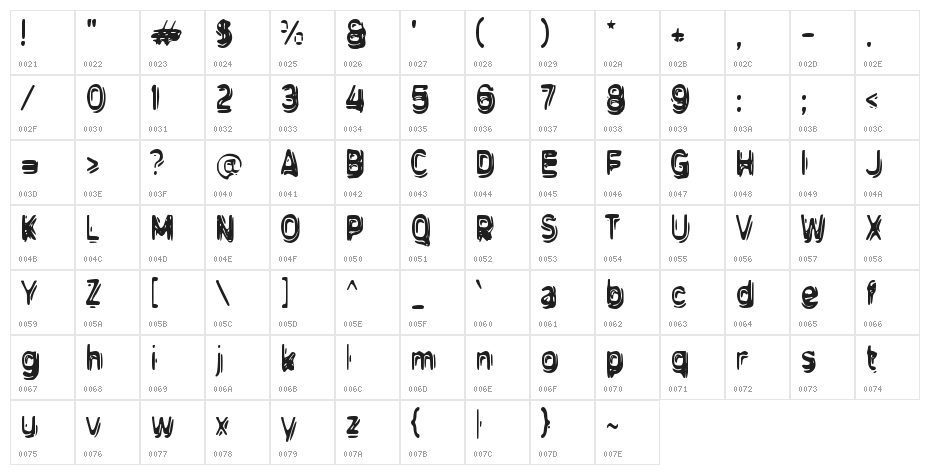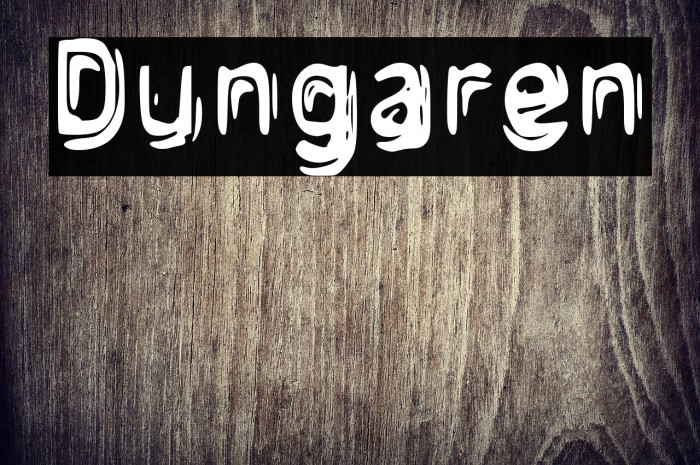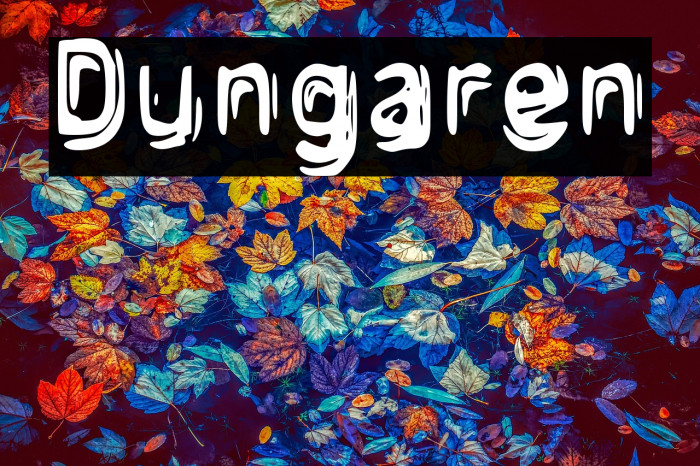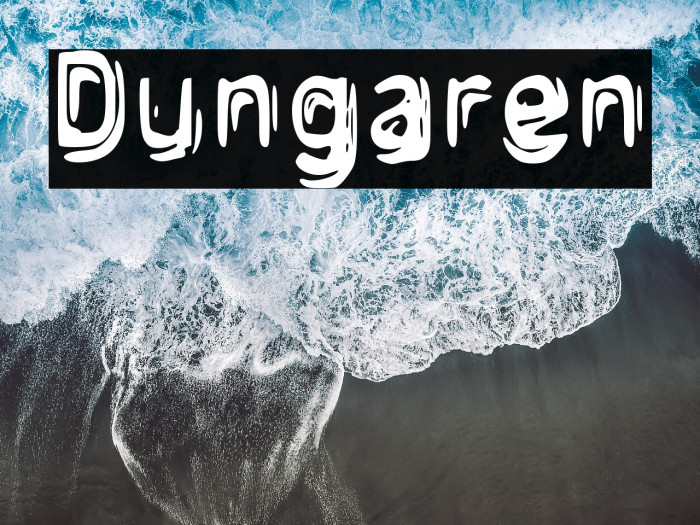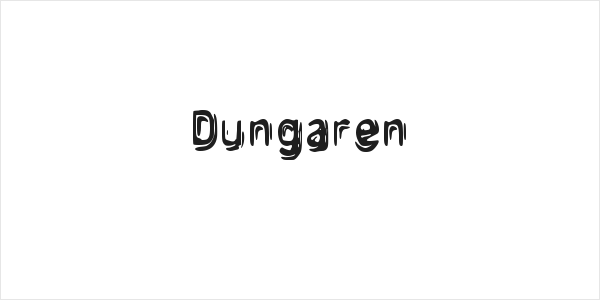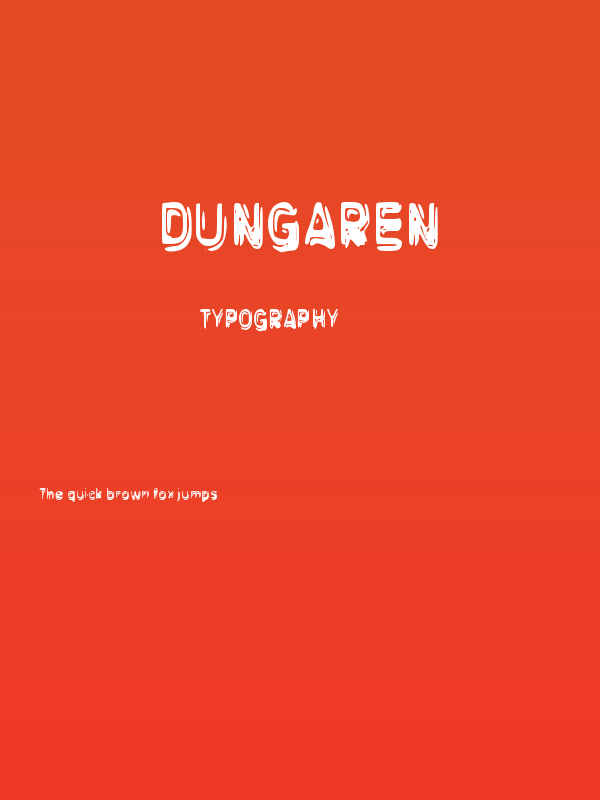
Dungaren Font
Dungaren Description
This font features a bold and playful design with a hand-drawn aesthetic. The characters are irregular and have a slightly distressed look, giving them a unique and artistic feel. The strokes are thick and uneven, adding to the casual and informal style. The font includes both uppercase and lowercase letters, numbers, and a variety of special characters. Its quirky and dynamic appearance makes it suitable for creative and fun projects.
Proposed ProjectsIdeal for children's books, comic strips, playful branding, and creative posters.